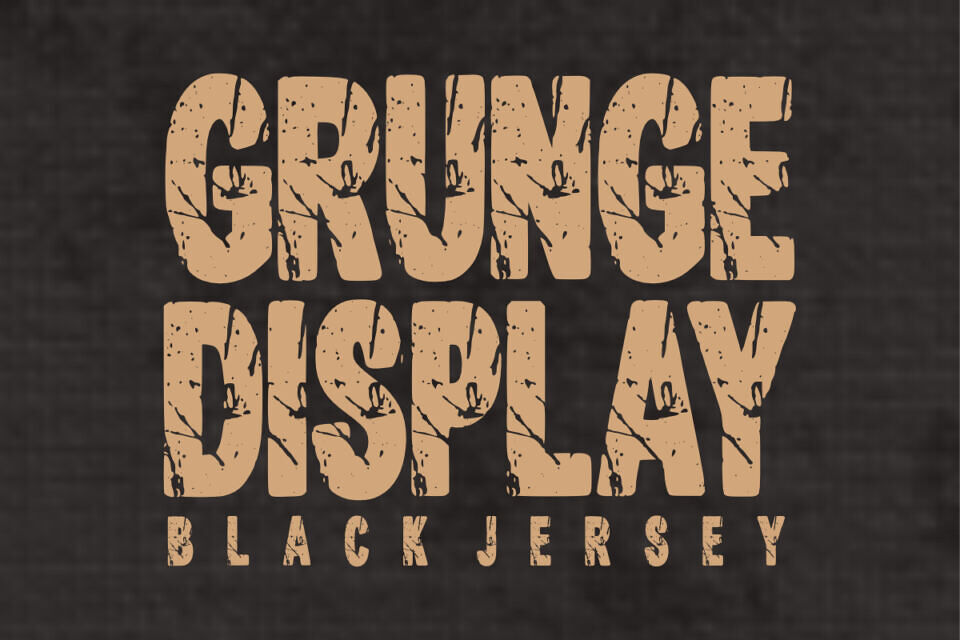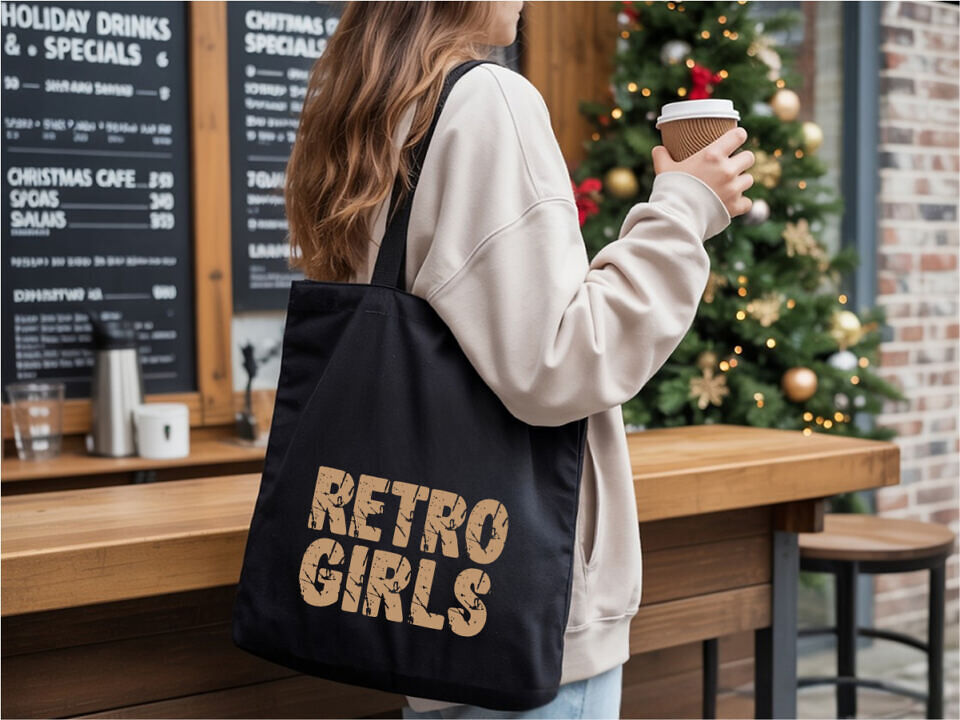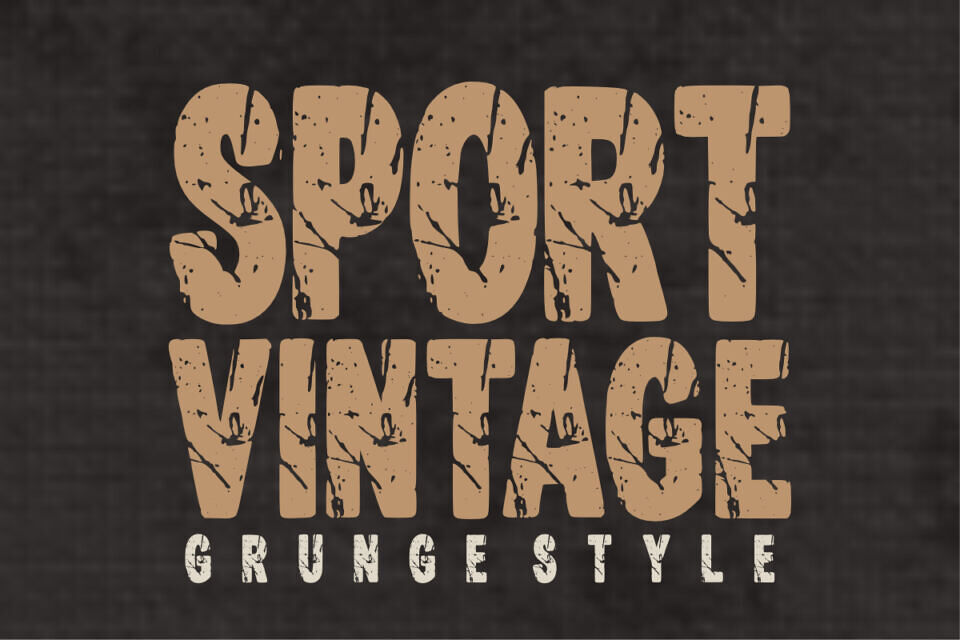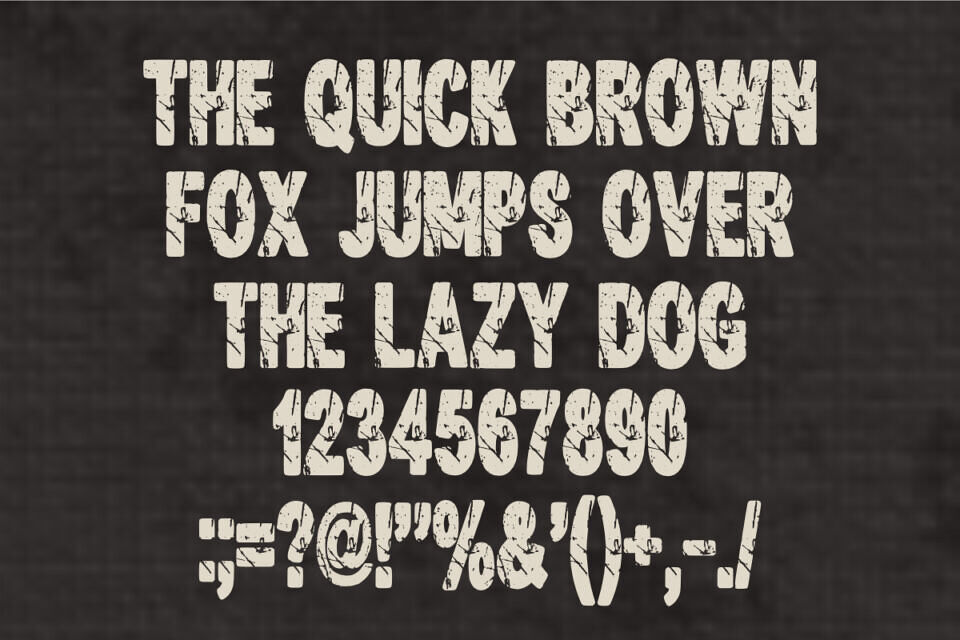
Dominate your designs with Grunge Display, a bold, high-impact font featuring an authentic distressed texture. Inspired by vintage sports jerseys and urban streetwear, this font brings a raw, industrial, and edgy vibe to any creative project.
With its condensed, heavy letterforms and “dirty” grit, Grunge Display is the ultimate choice for designers who want to create something that looks tough, timeless, and full of character. Perfect for high-energy branding and vintage-style layouts!